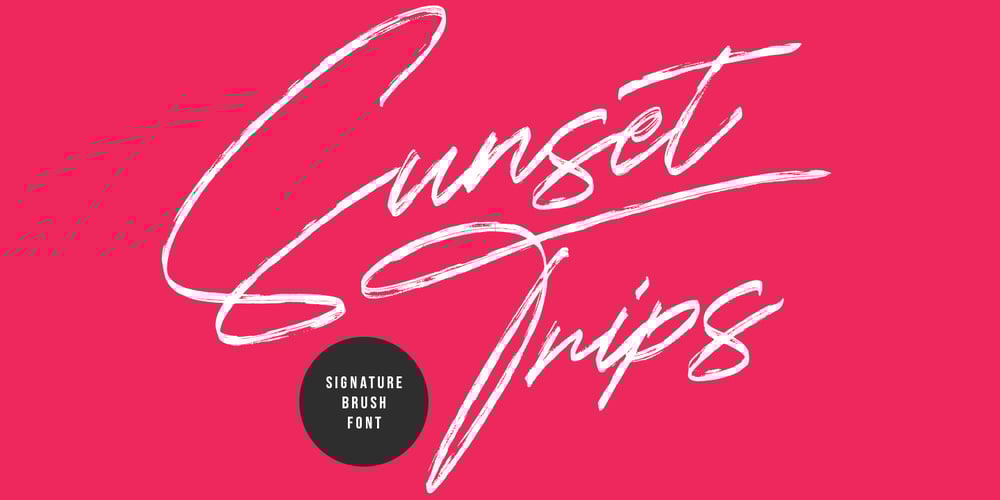
Sunset Trips Font Family was designed by Gilang Maulana and published by Maulana Creative. Sunset Trips contains 1 styles and family package options. Give your designs an authentic handcrafted feel. Sunset Trips is perfectly suited for signatures, stationery, logos, typography quotes, magazines or book covers, website headers, clothing, branding, packaging design and more.This font includes:- Ligatures- Multilingual SupportThanks for use this font ~ Maulana